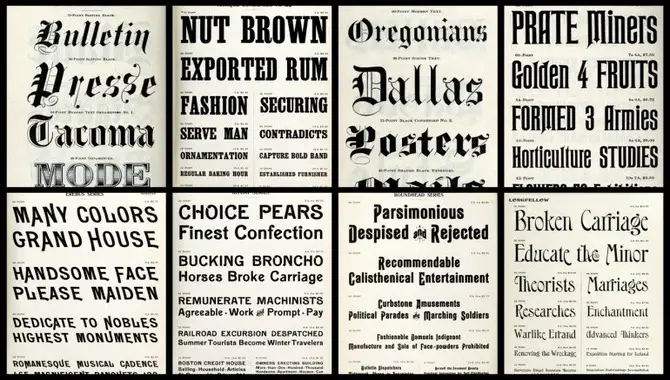
There’s something about a vintage newspaper font that looks so classy and sophisticated. Maybe it’s how the letters are all slightly different sizes and weights, or they seem imperfect.
Whatever the reason, vintage newspaper fonts have a charm that modern fonts don’t seem to have. Here are some of our favorites if you’re looking for a vintage newspaper font for your next project. The first font on our list is called Morning News. This font was created by designer Billy Argel and is inspired by early 20th-century American newspapers. The letters are slightly condensed and have a slightly rough edge, giving them a vintage feel.
Next is Pabst Blue Ribbon, a font inspired by the classic American beer brand. This font is perfect for creating vintage-style posters and labels. The letters are slightly irregular and have a weathered, distressed look.
If you’re looking for something a bit more playful, try out Circus Font. This font was created by designer Dave Whitson and is inspired by vintage circus posters. The letters are tall and thin with sharp angles, giving them a fun and playful look.
Finally, we have Newscycle, a font inspired by the classic newsprint fonts of the late 19th and early 20th centuries. The letters are slightly irregular and have a distressed, weathered look. Whatever vintage newspaper font you choose, you’re sure to
What Is A Vintage Newspaper Font?
If you’re a fan of all things old-fashioned, you’ll love using a vintage newspaper font in your designs. These fonts are perfect for creating a retro look and can be used for everything from invitations to flyers. So, These fonts are based on the styles used in old newspapers. They often have a distressed look and can be used to create vintage-inspired designs.
There are plenty of options if you’re looking for a vintage newspaper font. You can find fonts that mimic the look of old newspapers, or you can opt for a more modern take on the style. There are also a variety of free and paid options available.
Look at some of the best vintage newspaper fonts available to get started. Then, try using them in your next design project. You can create amazing vintage-inspired designs that impress you with a little practice.
What Are Some Popular Vintage Newspaper Fonts?
Many popular vintage fonts can be used for newspapers. Some of the most popular include:
- 1Bembo: Bembo is a serif typeface created in 1496 by Francesco Griffo. It is one of the oldest typefaces and is still widely used today.
- Caslon: Caslon is another serif typeface created in the 18th century by William Caslon. It is a classic and elegant font perfect for formal or serious newspapers.
- Garamond: Garamond is a serif typeface created in the 16th century by Claude Garamond. It is a classic font perfect for formal or serious newspapers.
- Goudy: Goudy is a serif typeface created in the late 19th century by Frederick Goudy. It is a classic and elegant font perfect for formal or serious newspapers.
- Helvetica: Helvetica is a sans-serif typeface created in the mid-20th century by Max Miedinger. It is a modern, clean font perfect for more contemporary newspapers.
Why Do Some People Prefer Vintage Newspaper Fonts?
There are plenty of reasons to love vintage newspaper fonts. For starters, they have a certain charm and character you can’t find in modern fonts. They’re also incredibly versatile and can be used for various projects. One of the best things about vintage newspaper fonts is that they can be used to create a sense of nostalgia.
If you’re working on a project meant for a certain period, then vintage font can help you achieve that goal. Vintage newspaper fonts can also add a bit of personality to your work. If you want your work to stand out, using a unique font is great.
Finally, vintage newspaper fonts can be a great way to add visual interest to your work. If you’re working on a straightforward project, adding a vintage project font can help liven things up. If you’re looking for a vintage newspaper font in your forest, check out the following list. We’ve rounded up some of the best options, so you can find one that fits your needs.
How Can I Create A Vintage Newspaper Font?
If you’re looking for a quick and easy way to add a touch of vintage flair to your next project, you’ll love this tutorial on creating a vintage newspaper font in Photoshop!
You can create a font that looks straight out of an old-fashioned newspaper in just a few simple steps. So grab your copy of Photoshop, and let’s get started!
Step 1: Start by creating a new document in Photoshop. Make sure the width and height are both set to 1000 pixels.
Step 2: Next, you’ll need to find a font that will work well for this project. A good option is to use a free font called Newspaper Font. You can download it here:
Step 3: Once the font is downloaded, open it up in Photoshop. You’ll need to create a new layer for each alphabet letter. To do this, select the Type tool from the toolbar and click on the canvas where you want to start adding your letters.
5.What Impact Do Vintage Newspaper Fonts Have On The Overall Aesthetic Of A Design?
Ans: Vintage newspaper fonts significantly impact the overall aesthetic of a design. These fonts add a sense of history and nostalgia to a design that can evoke emotions and create a connection with the viewer. They also provide a unique visual element that stands out from modern fonts, making the design more memorable.